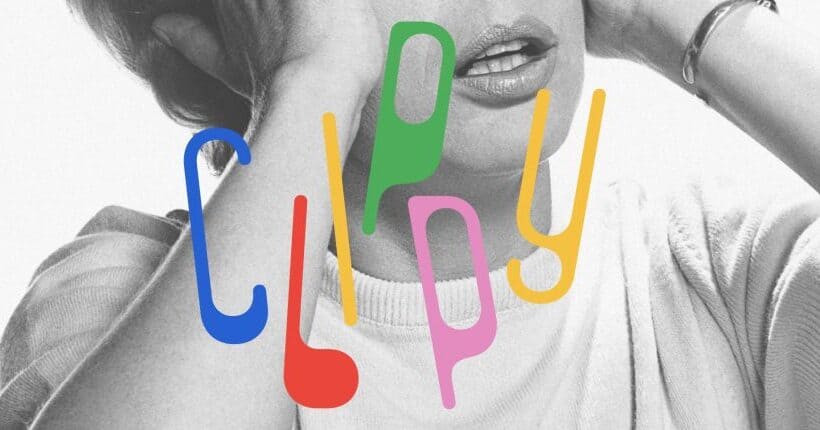
A Curious Revival That Reframes Typography
As a branding curator, I track type with an eye for voice, and Clippy stopped me mid scroll. This 1973 paperclip contour reborn as Clippy is whimsical, surprising, and perfectly keyed for bold web headlines.
Its variable font motion lets letters rock instead of simply slanting, giving brands playful motion without losing legibility. Use it for a headline, a campaign splash, or a signature logo, not for banking app body copy.
Kanon Foundry preserved the spirit of Ad Werner’s 1973 outline, then expanded it into a robust family. Clippy fills outlines, introduces uppercase, supports 219 languages, and offers 530 glyphs for global brand systems. Variable axes let designers tune motion, so identity feels alive without gimmicks.
In a market tired of polite geometric sans, this quirky revival gives teams a way to stand out with personality. As a curator I recommend testing Clippy at large scales, pairing it with neutral text faces for balance. Read the piece to see motion samples and expert thoughts, then imagine headline treatments for your next launch. It is ideal for playful campaigns, editorial covers, experiential wayfinding, and daring product reveals that spark conversation.